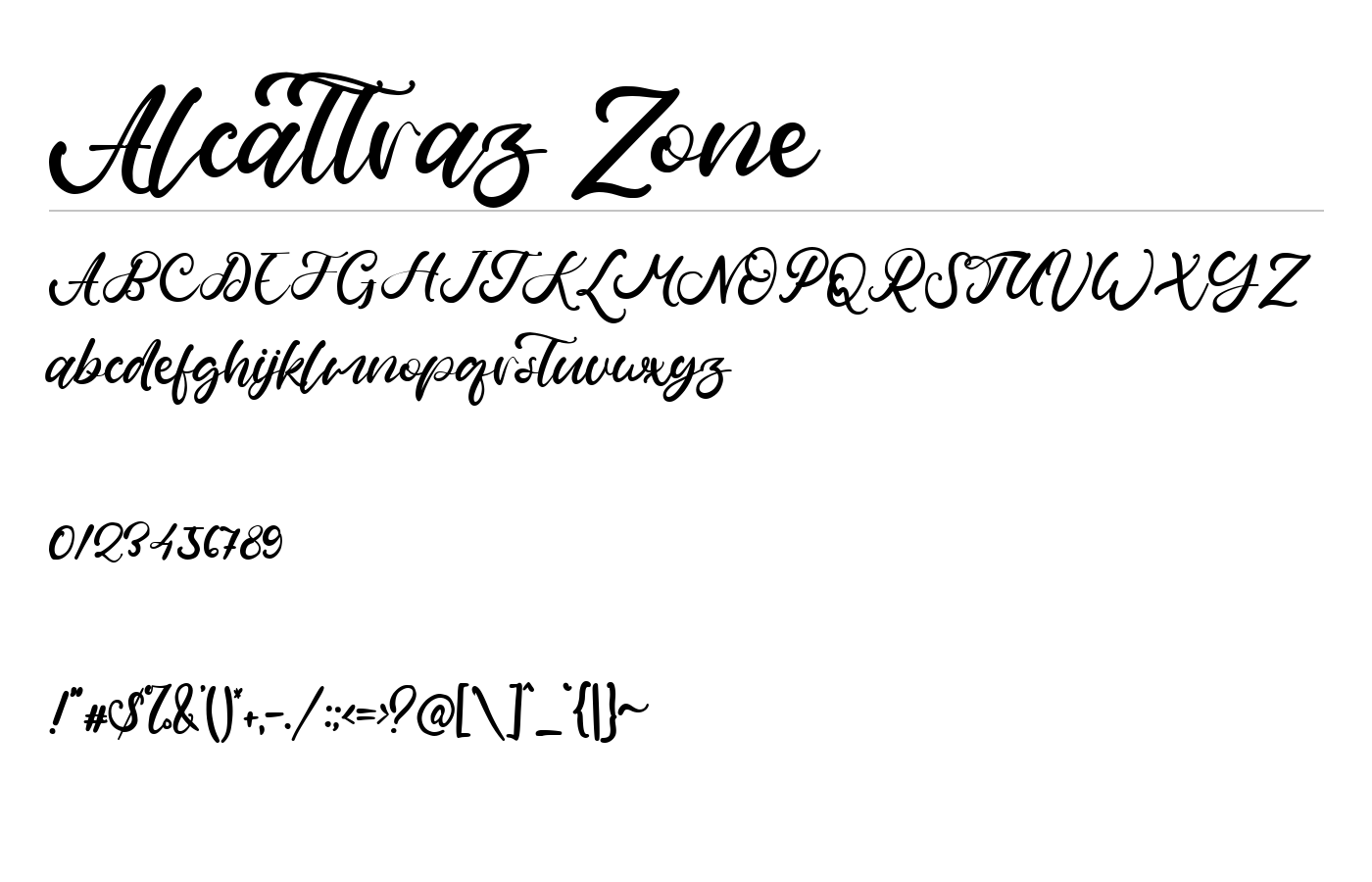
Alcattraz Zone is a dynamic script font with fluid, expressive strokes that combine elegance with a casual, handcrafted feel. Its moderate contrast and lively letterforms, including unique swashes and flowing connections, make it ideal for creative branding, invitations, and stylish headlines where a personal and artistic touch is desired. This font works best in projects that need a blend of sophistication and approachable charm, such as fashion, packaging, and editorial designs.
Alcattraz Zone Font
About Alcattraz Zone Font
| Font family | Alcattraz Zone Font |
| Designer | VZtype |